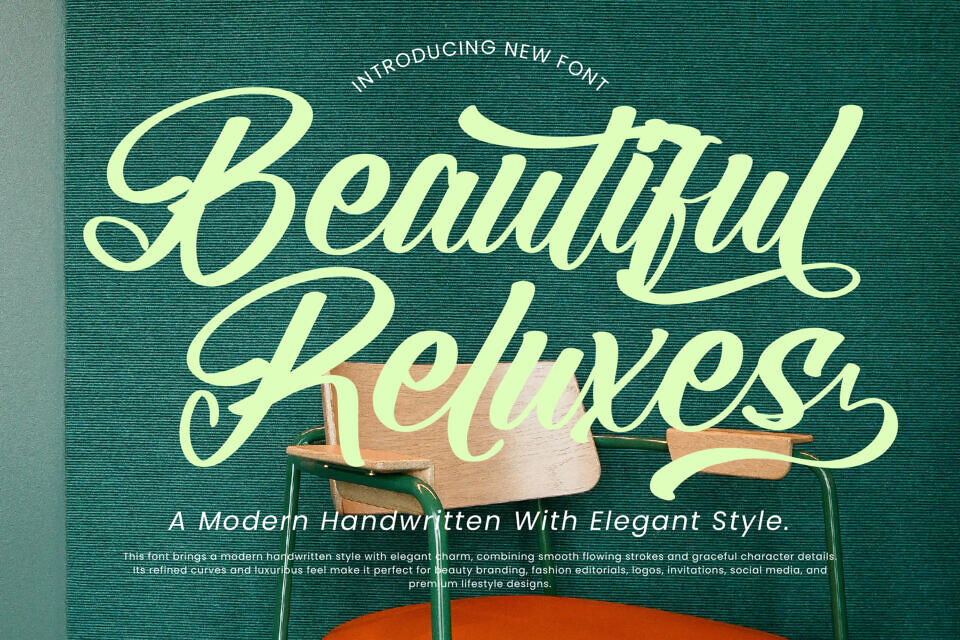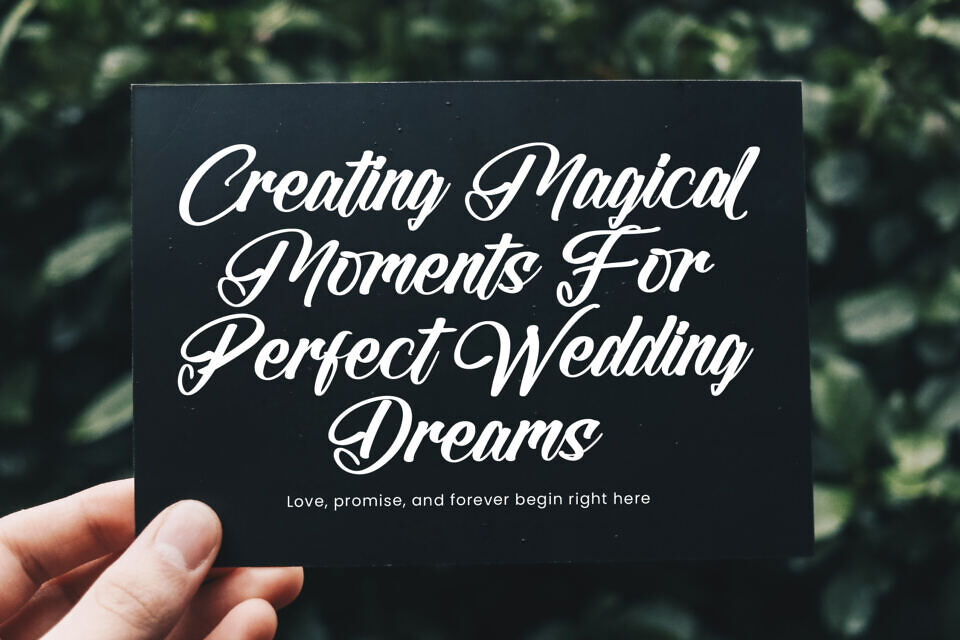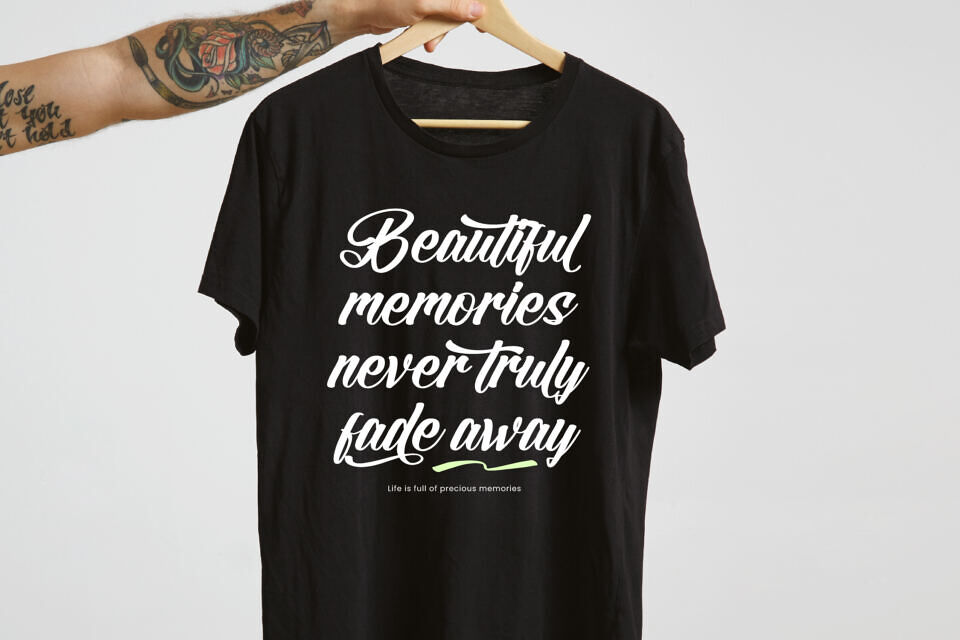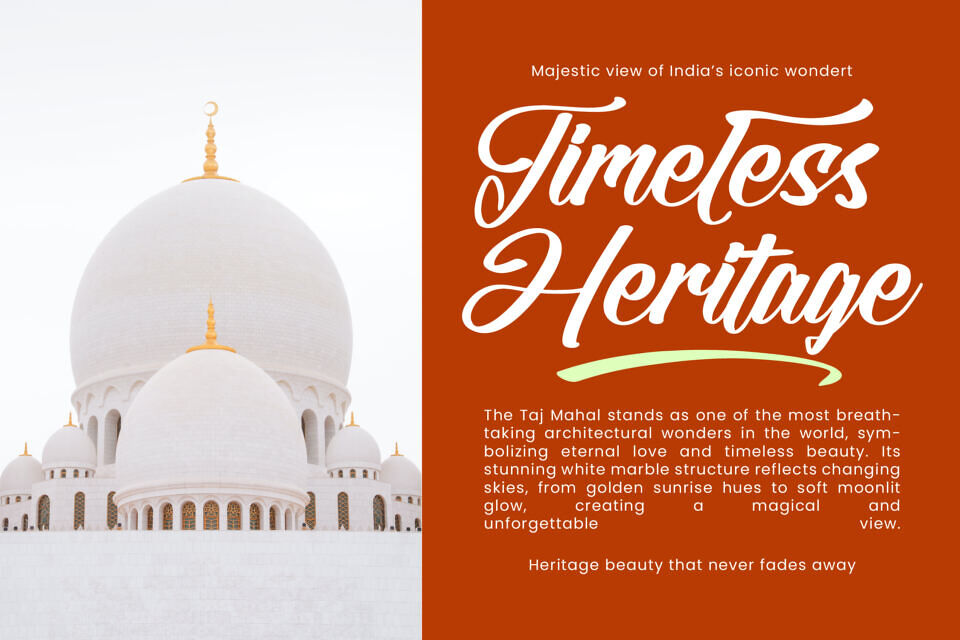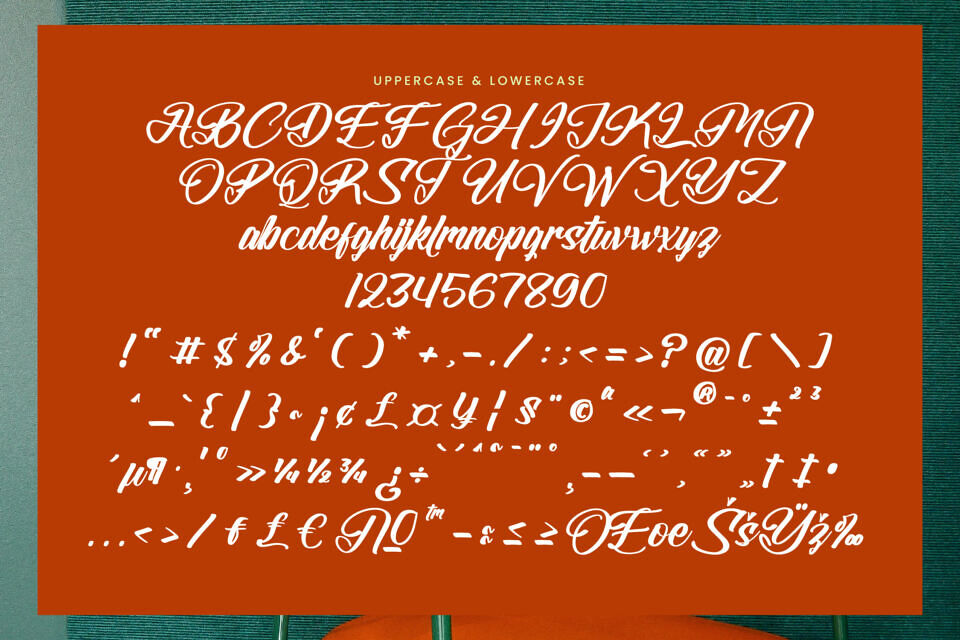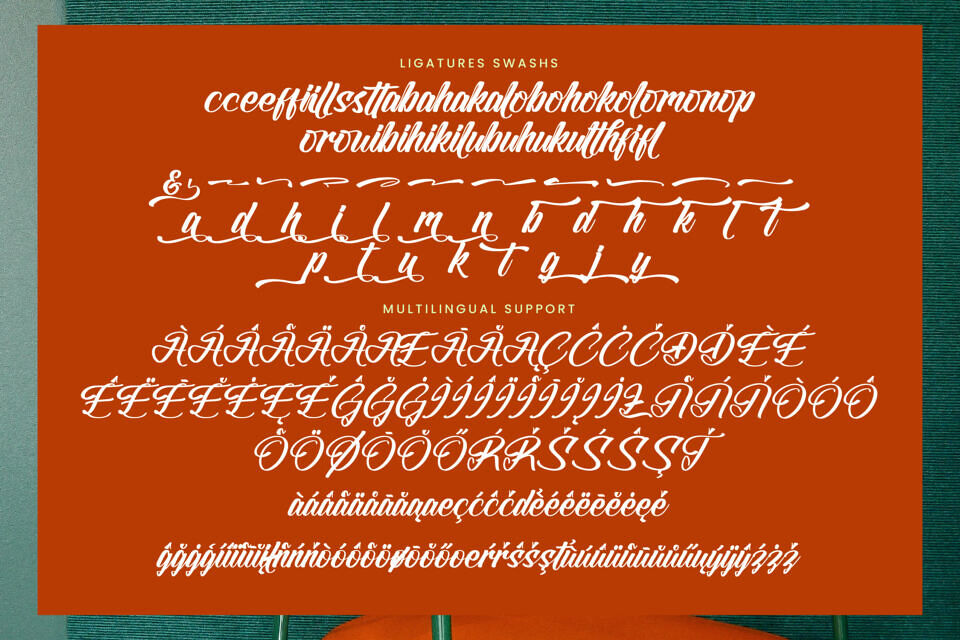
Beautiful Reluxes is a modern handwritten script font that blends elegant curves, flowing strokes, and luxurious character details into a sophisticated typeface. With its smooth connections, expressive swashes, and refined letterforms, Beautiful Reluxes creates a premium handwritten aesthetic perfect for contemporary branding and elegant visual communication.
Whether you’re creating beauty branding, fashion editorials, logos, invitations, social media content, or premium packaging, Beautiful Reluxes adds a touch of charm, confidence, and timeless elegance.